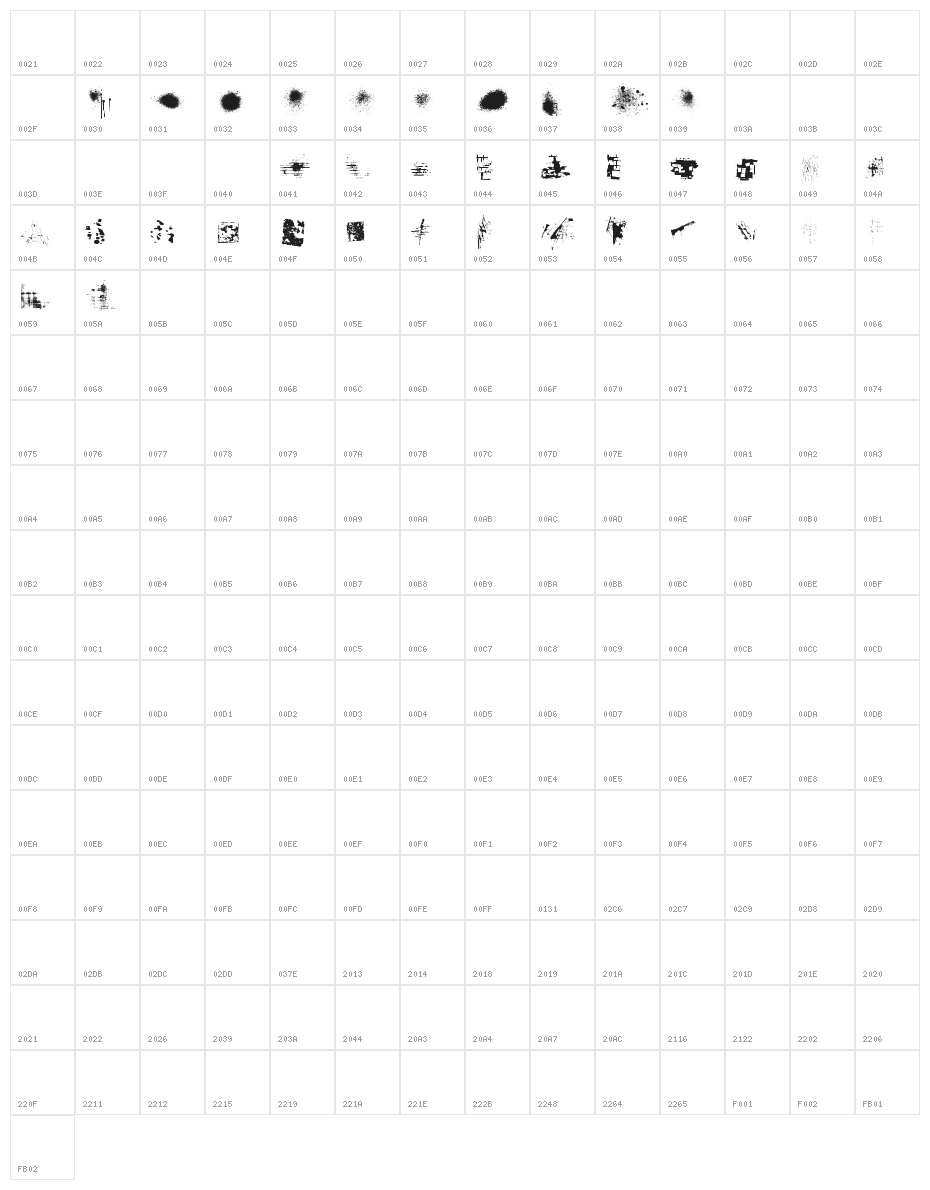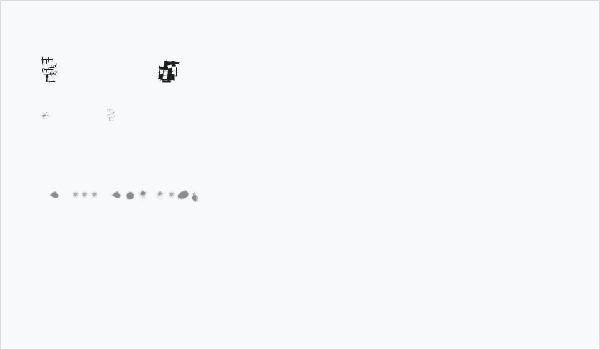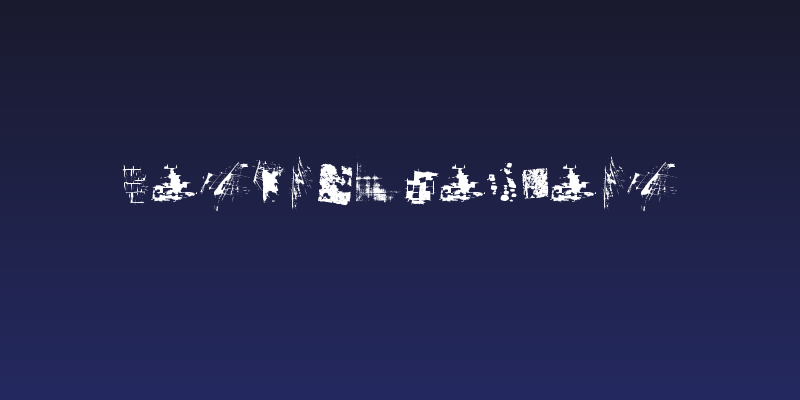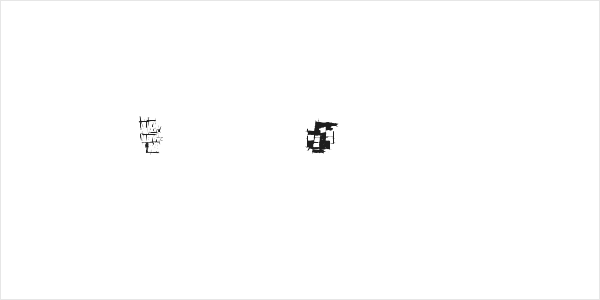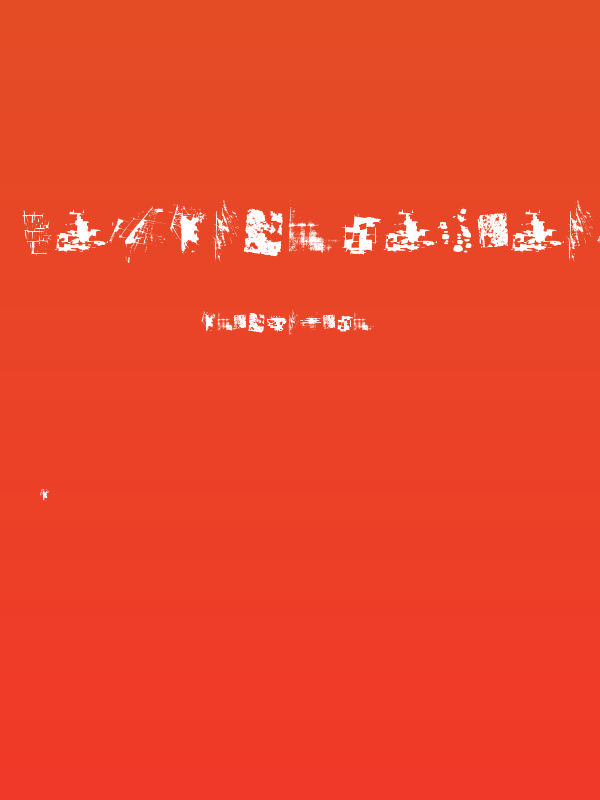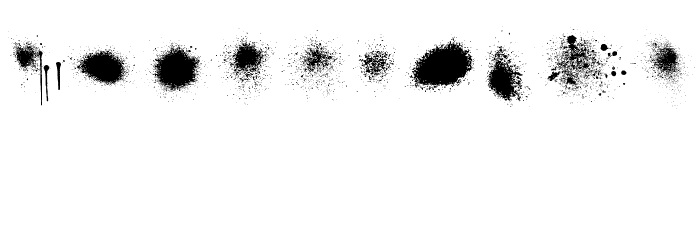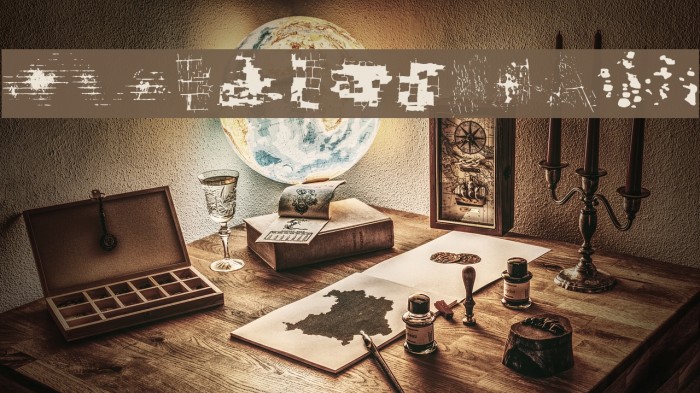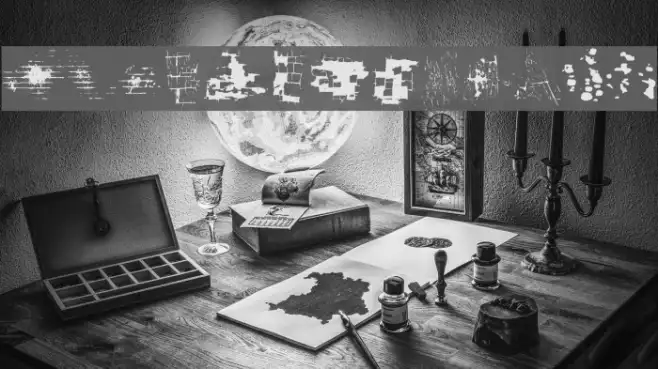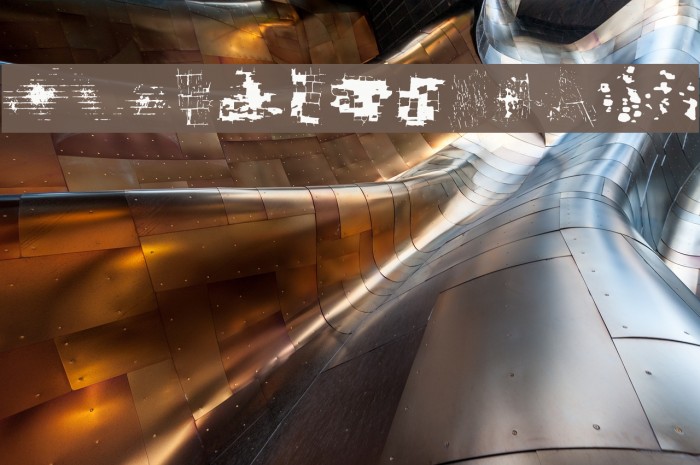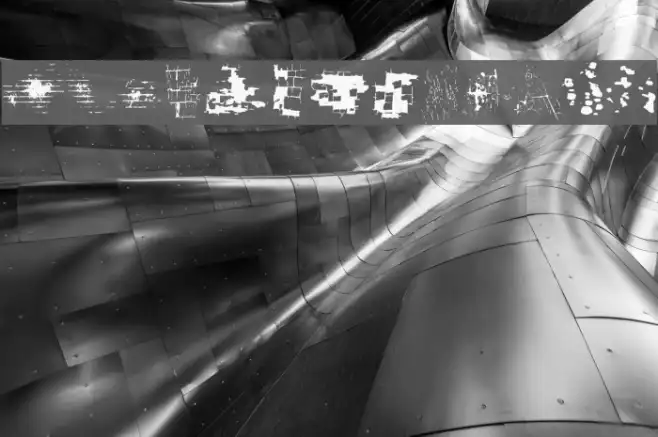
Destroy Helpers Font
Destroy Helpers Description
This font features a highly distressed and grungy style, characterized by its fragmented and eroded letterforms. Each character appears as if it has been weathered or damaged, giving it a chaotic and raw aesthetic. The texture is reminiscent of urban decay or graffiti, with elements that look like they have been scratched or splattered. This font is designed to make a bold statement, capturing attention with its unique and unconventional appearance. The irregular shapes and rough edges contribute to its overall edgy and rebellious vibe, making it suitable for projects that require a strong visual impact.
| Overall Style | Grunge, Urban, Edgy |
| Proposed Projects | Ideal for album covers, streetwear branding, posters, or any project needing an edgy, urban aesthetic. |